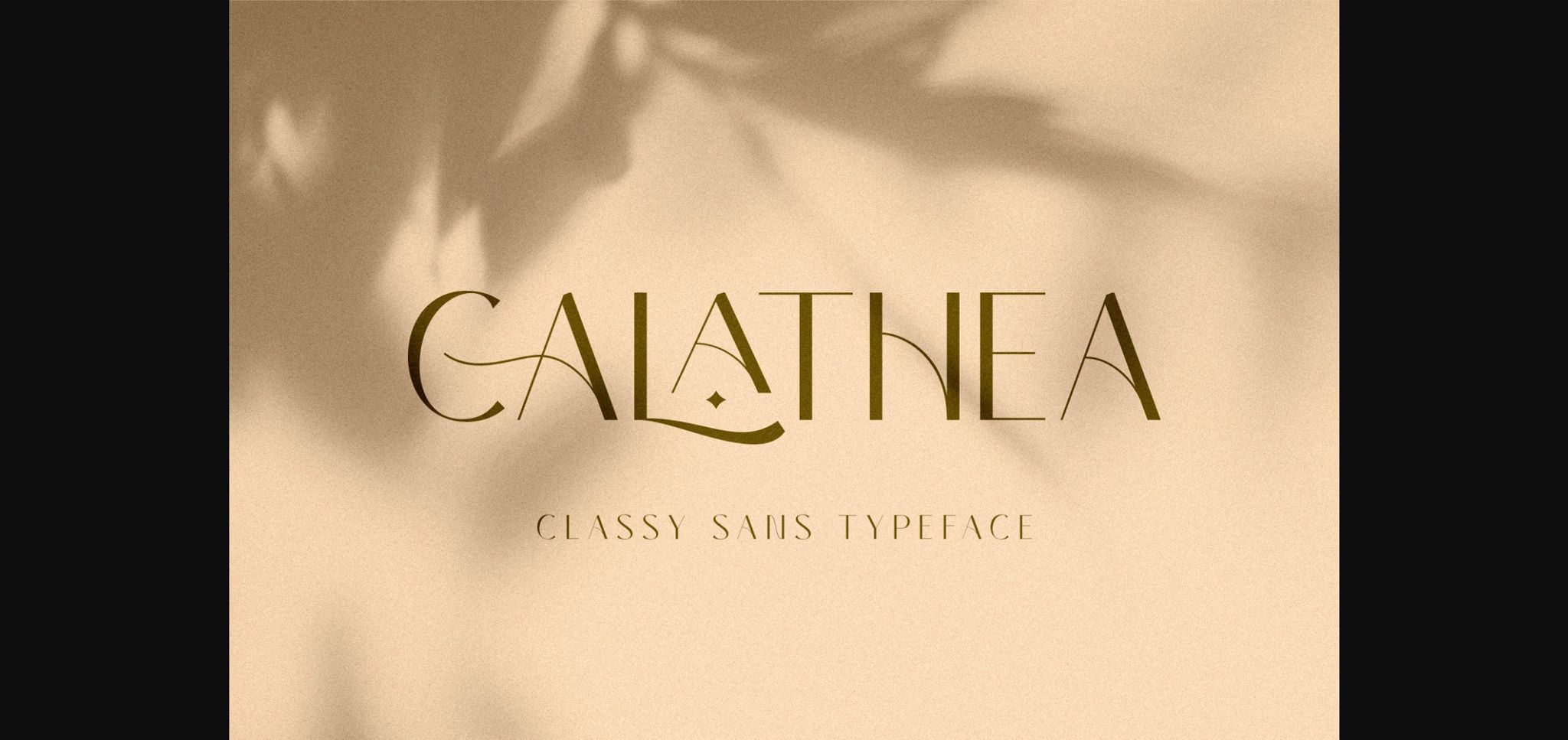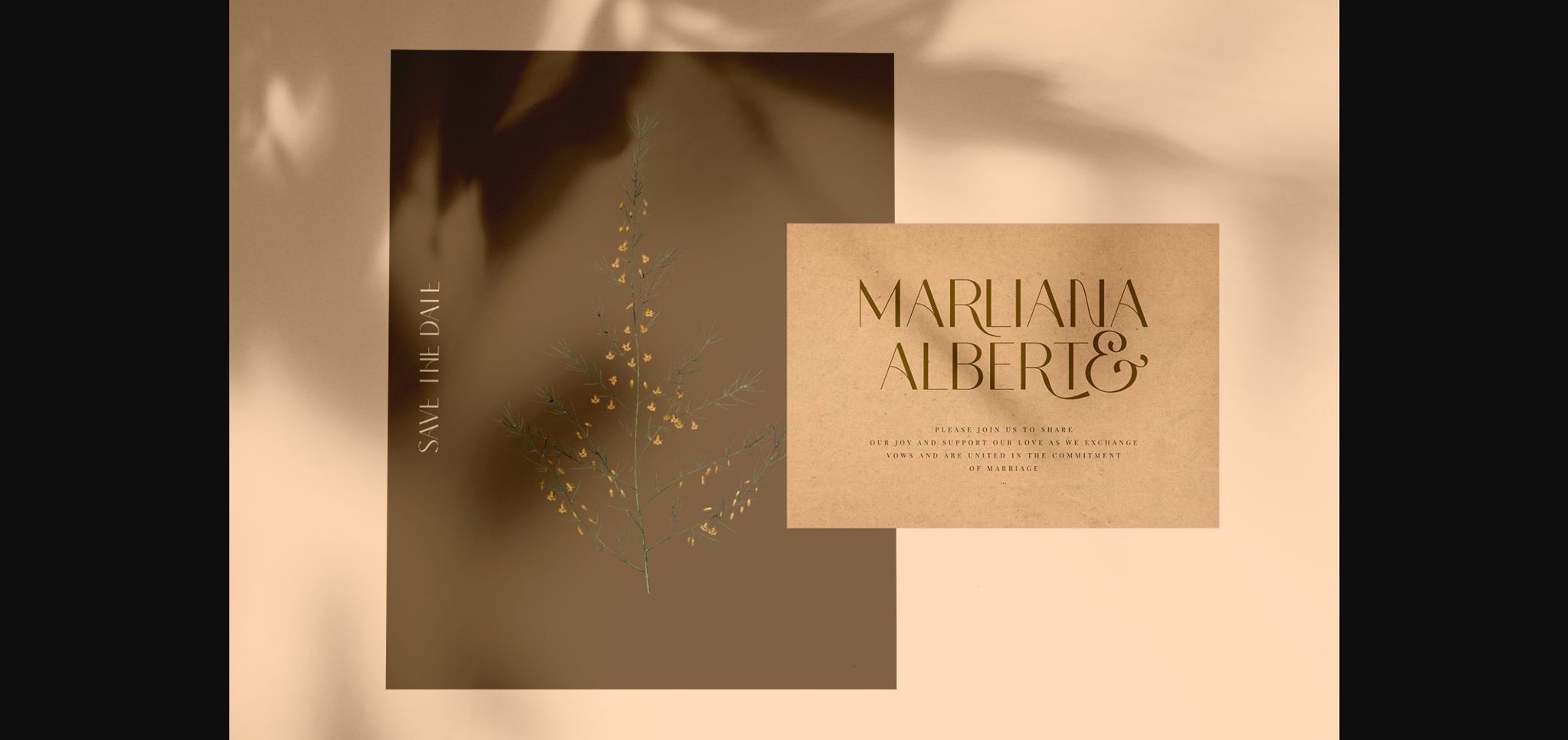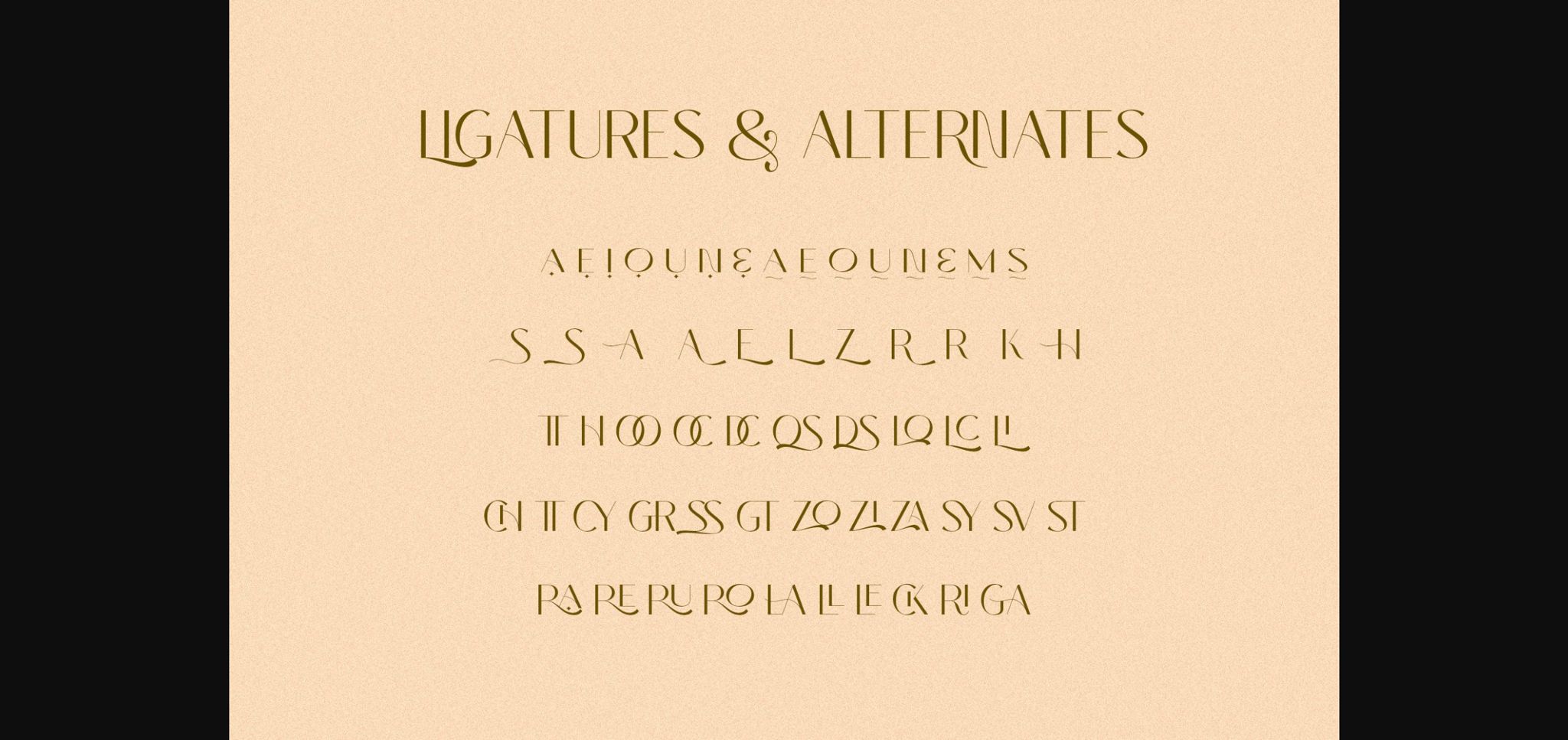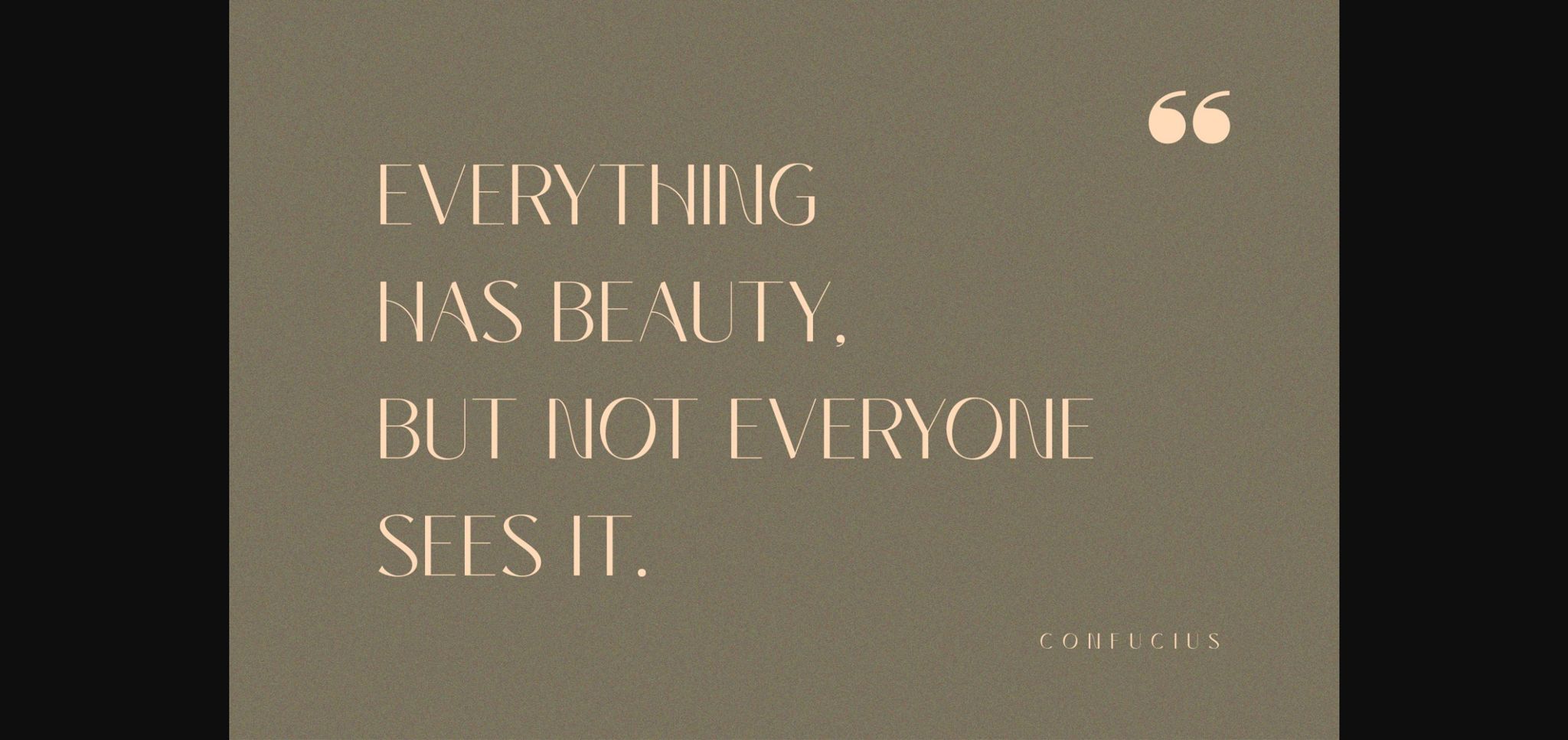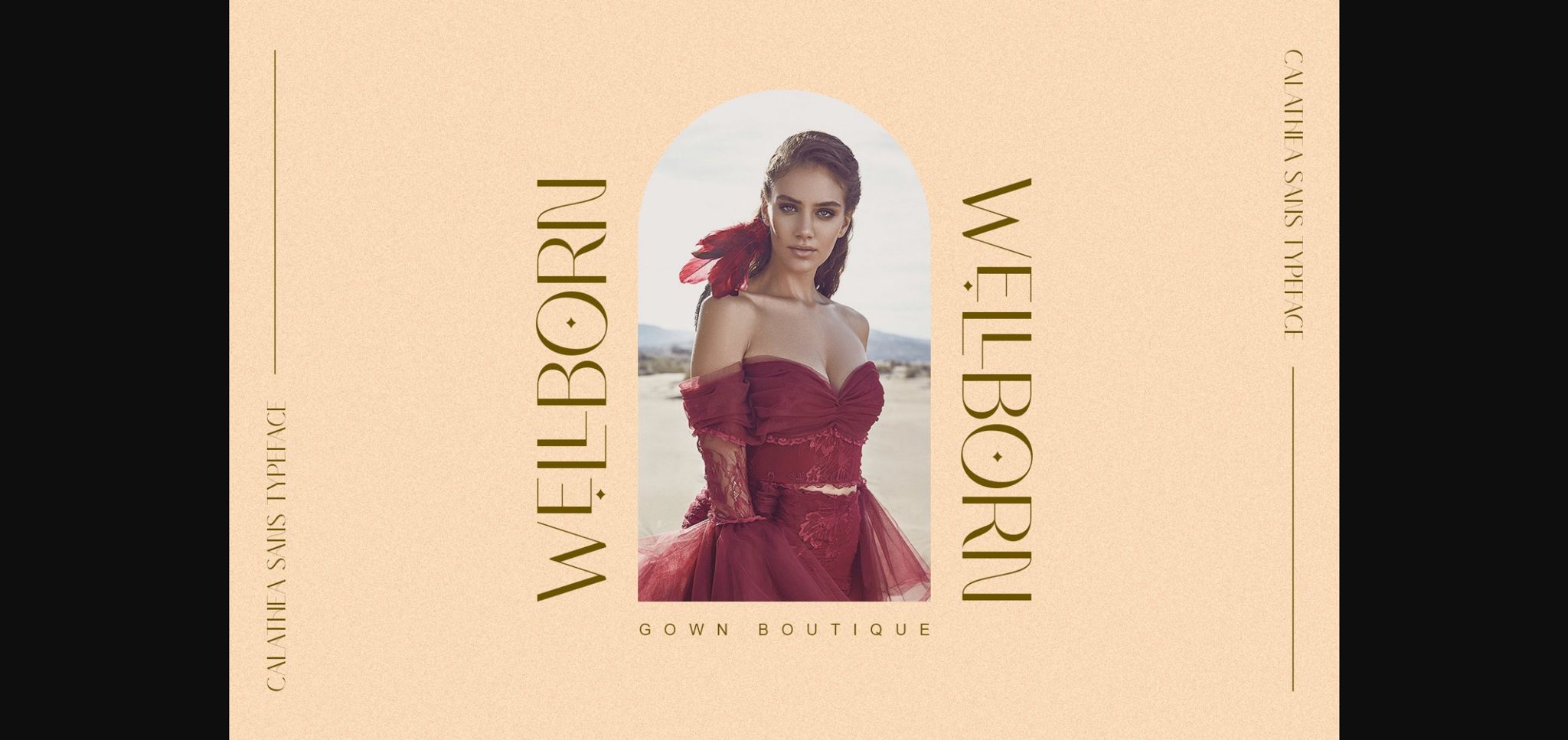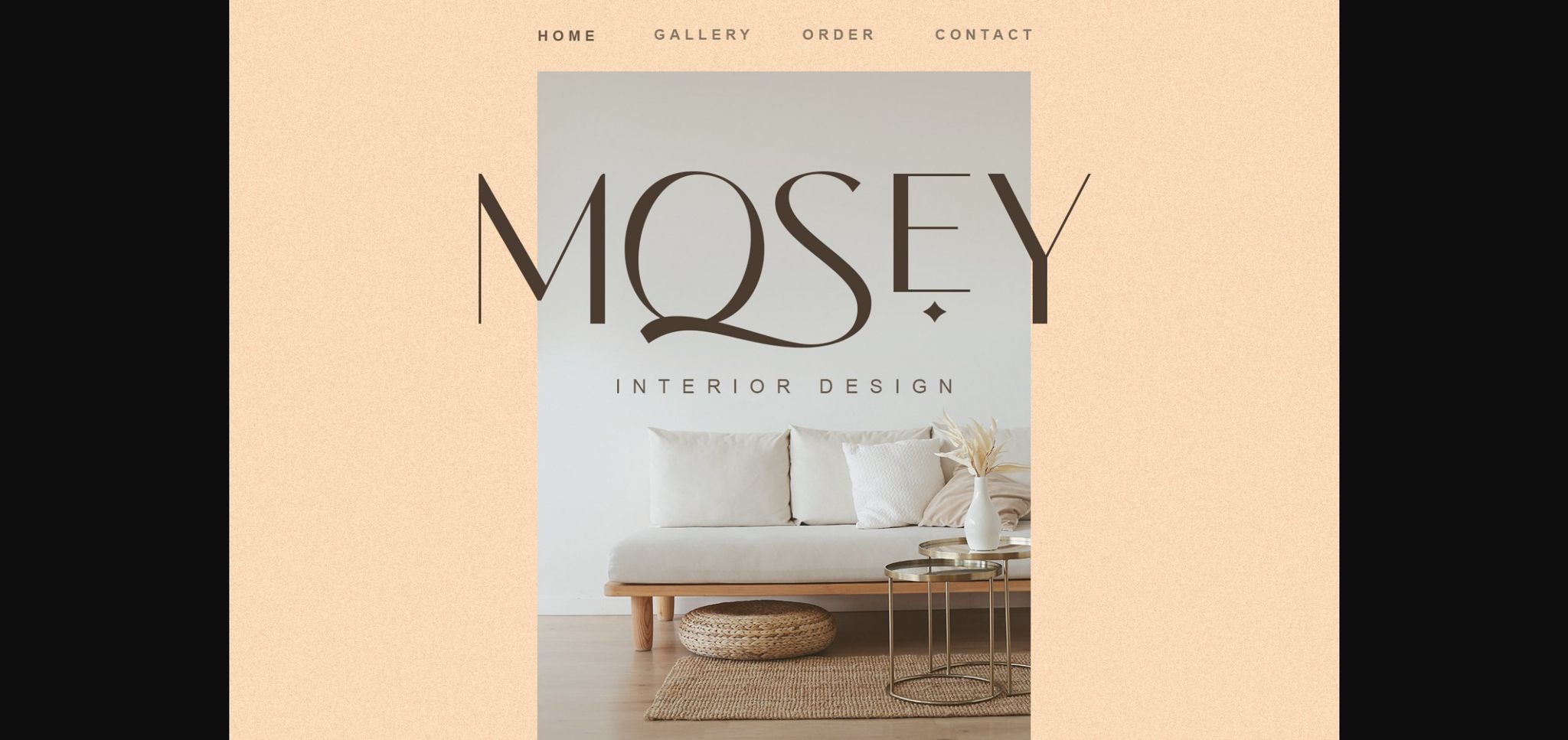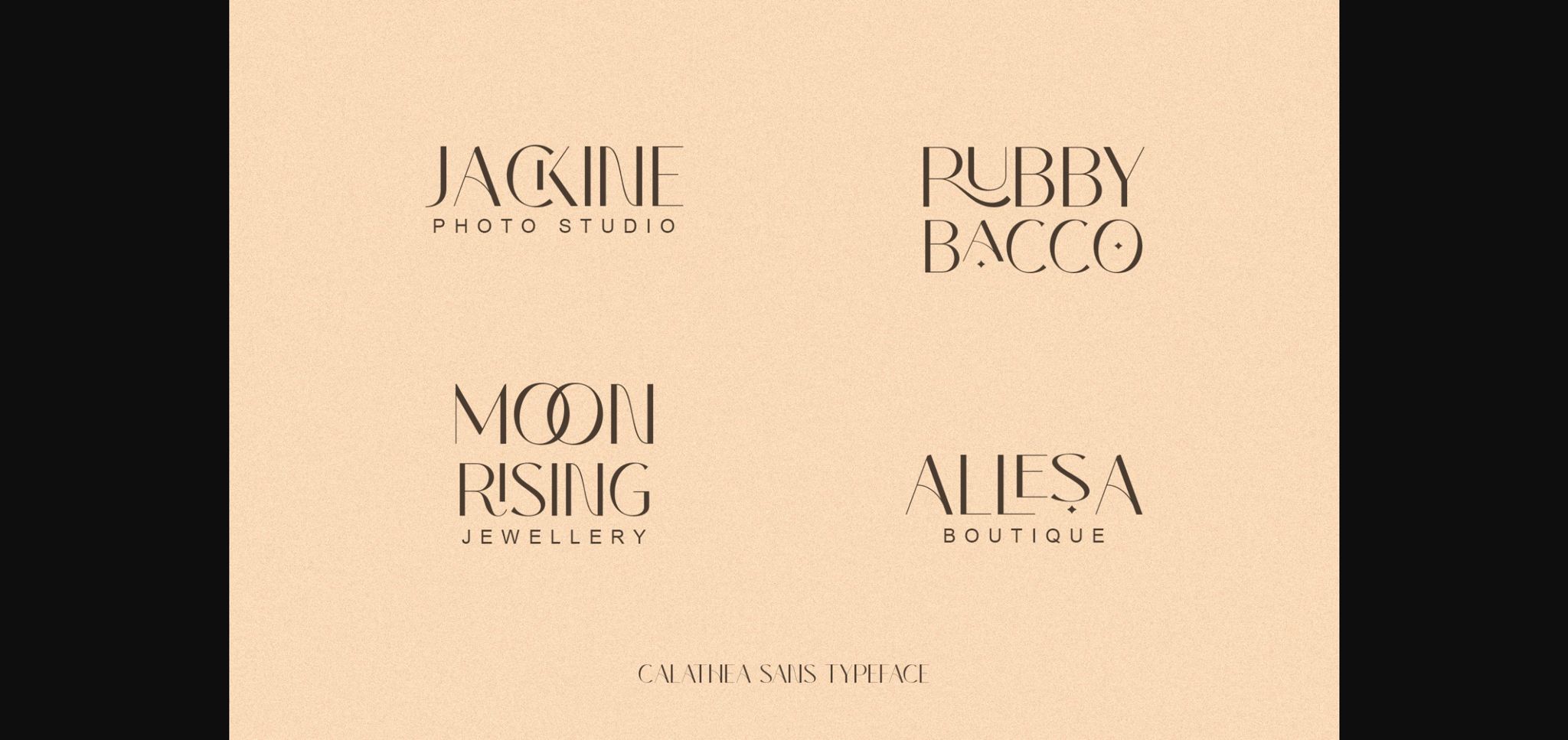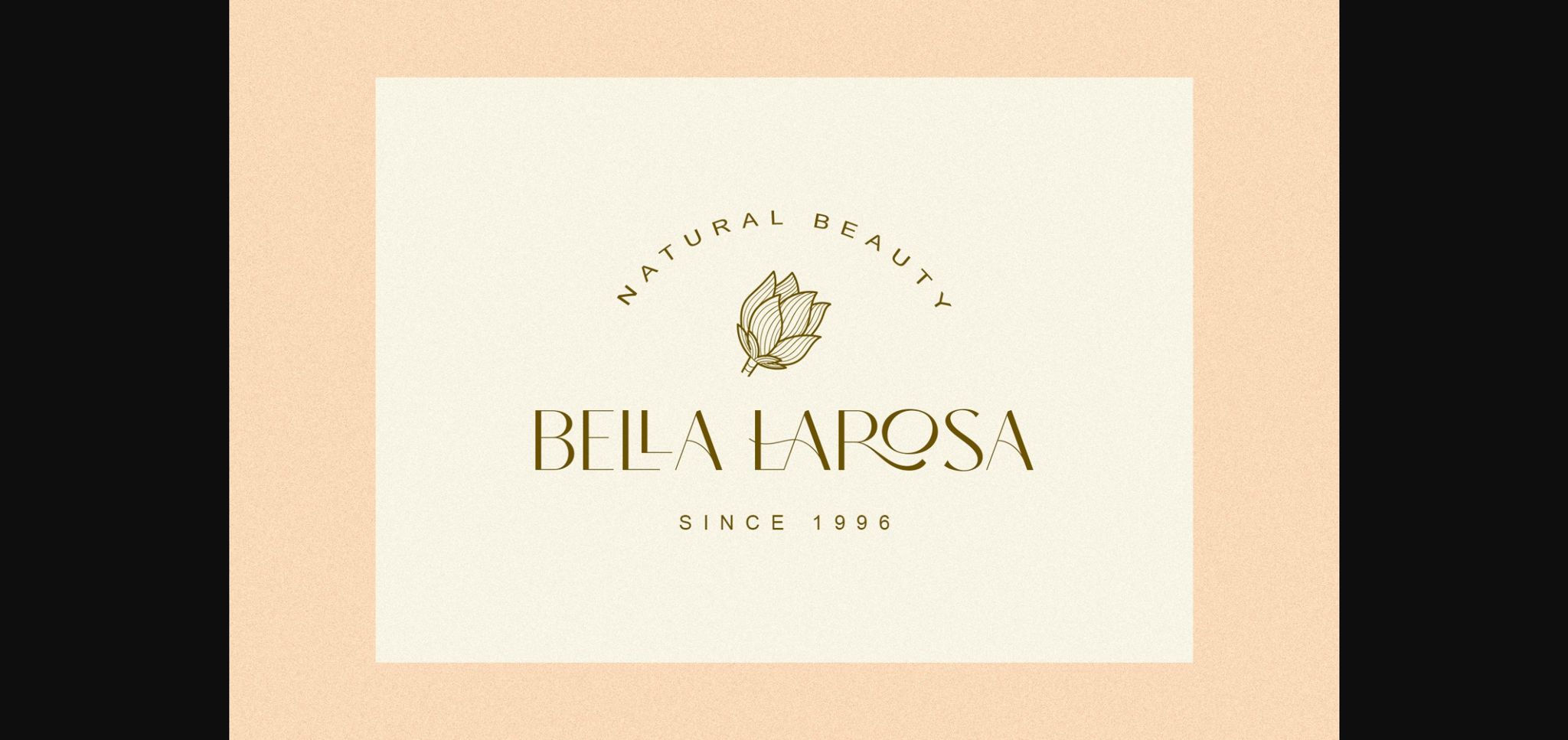
HomeSans Serif FontsCalathea Font Sans Serif Fonts Calathea Font FacebookXPinterestWhatsApp 1 of 11 ... Calathea Font Poster 2... Calathea Font Poster 3... Calathea Font Poster 4... Calathea Font Poster 5... Calathea Font Poster 6... Calathea Font Poster 7... Calathea Font Poster 8... Calathea Font Poster 9... Calathea Font Poster 10... Calathea Font Poster 11... About Calathea Font Calathea is a classy and elegant sans serif font. It will add a luxury spark to any design project that you wish to create! DOWNLOAD NOW People also explored Tweet Lesson Font Abstain Font Hoffers Font Boldusk Font Sadhira Script Font Rumbling Dog Font Noodle Font Marigold Font Orlando Smith Font 329 0 TagsCalathea Font Previous articleBelithel FontNext articleLunema Font LEAVE A REPLY Cancel reply Comment: Please enter your comment! Name:* Please enter your name here Email:* You have entered an incorrect email address! Please enter your email address here Website: Save my name, email, and website in this browser for the next time I comment. Personal Use Free Elevate Your Halloween Designs with 500 Free High-Quality PNG Clipart Files Personal Use Free Read more about this font Bitcrusher Condensed Bold Personal Use Free Read more about this font Happy Rabbit Personal Use Free Read more about this font Crayones Personal Use Free Read more about this font BLOG How to Install and Use Fonts on Windows, macOS, and Web Projects How to Install and Use Fonts on Windows, macOS, and Web Projects Fonts are a crucial part of design and branding. Whether you’re designing a... Free Fonts Risk: Why Free Fonts Can Be Dangerous for Designers Transform Your Website: Elevate Your Typography with 7 Best Web Font Generators 5 Fonts That Will Dominate Design Trends in 2026